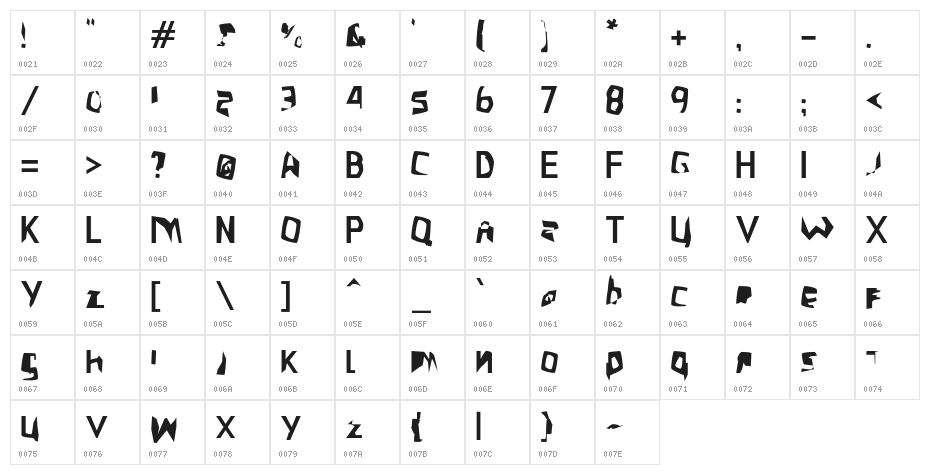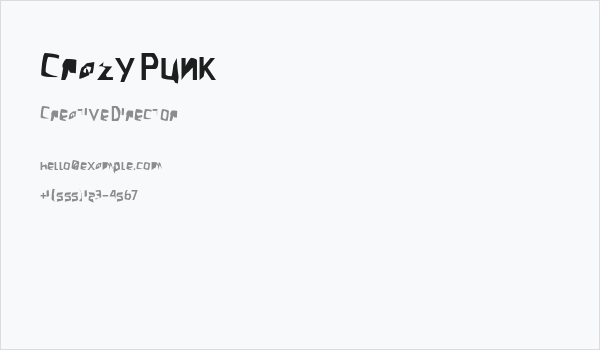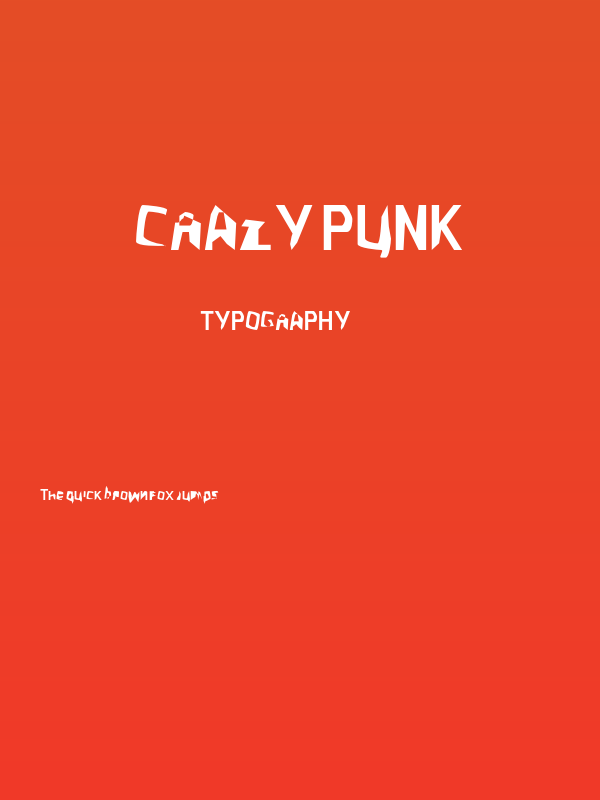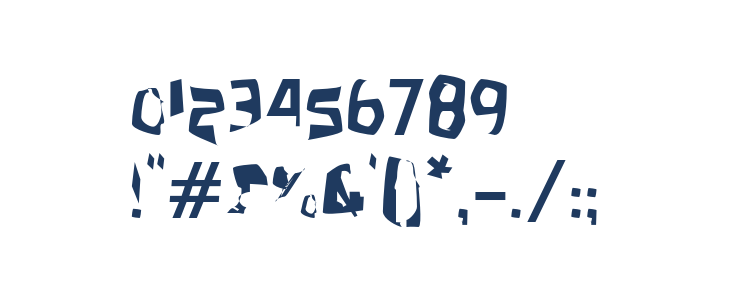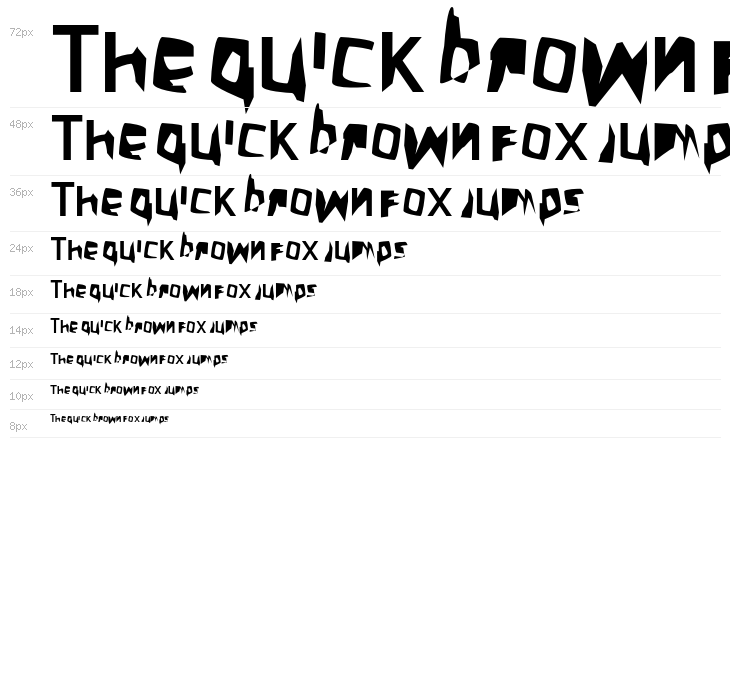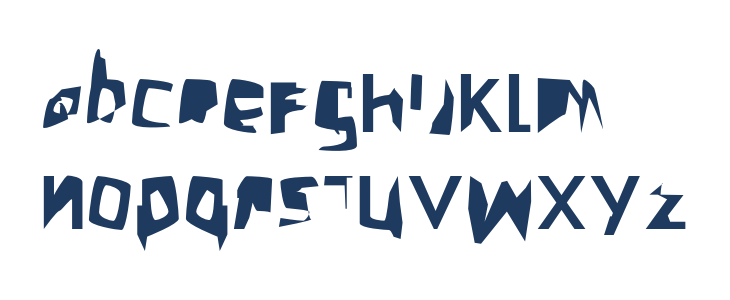
Crazy Punk Font
Crazy Punk Description
This font features a bold, edgy design with sharp, angular lines and a distinctly rebellious aesthetic. The characters are irregular and jagged, giving off a chaotic and energetic vibe. The uppercase and lowercase letters maintain a consistent style, with each character appearing as if it has been cut from paper or metal, creating a sense of movement and dynamism. The numbers and special characters follow the same design principles, ensuring a cohesive look across all glyphs. This font is perfect for projects that require a bold statement or a punk-inspired theme.
| Overall Style | Punk, Edgy, Rebellious |
| Proposed Projects | Ideal for music album covers, posters, streetwear branding, and edgy graphic design projects. |